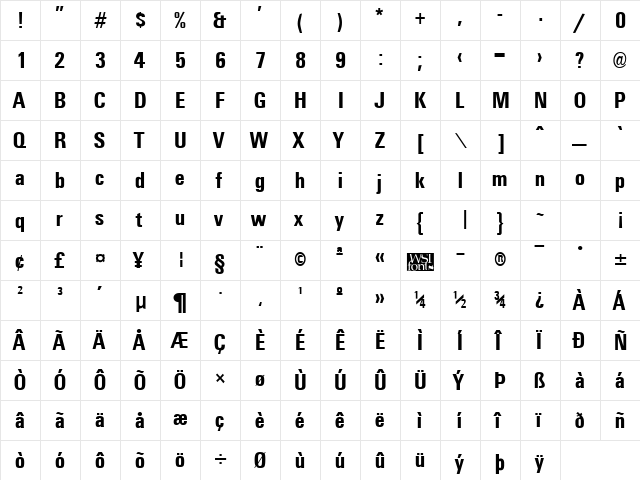
UniversalCondensed Bold
Design Context for UniversalCondensed Typeface
UniversalCondensed is a composed and adaptable typeface that performs quietly and consistently across a wide range of design contexts. The heavy weight commands attention and anchors typographic hierarchies. The condensed width makes it efficient for tight spaces without sacrificing legibility.